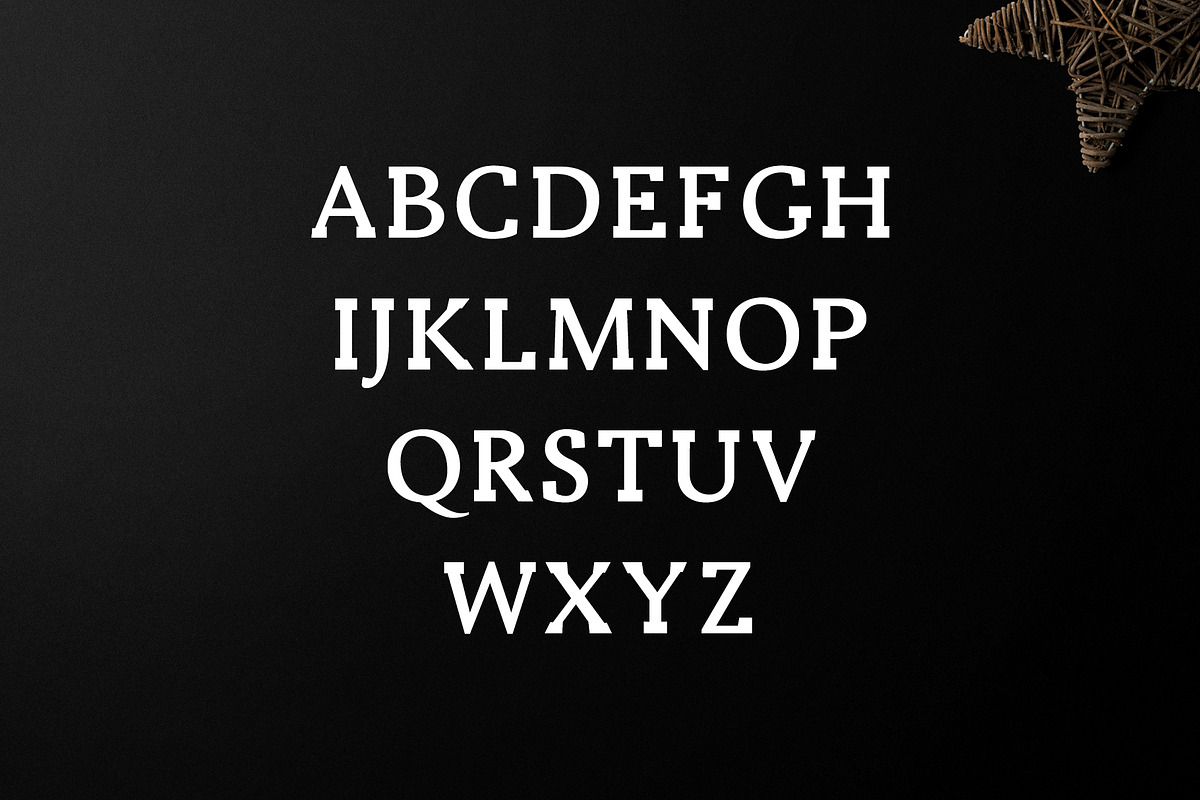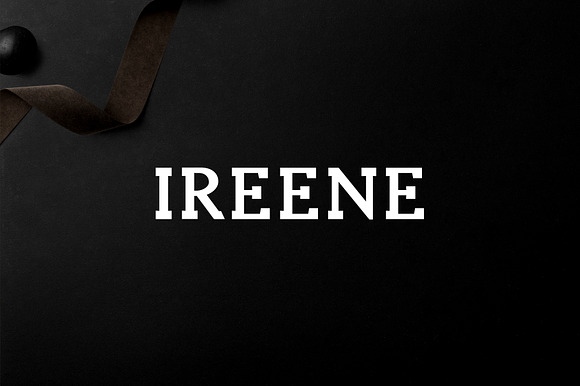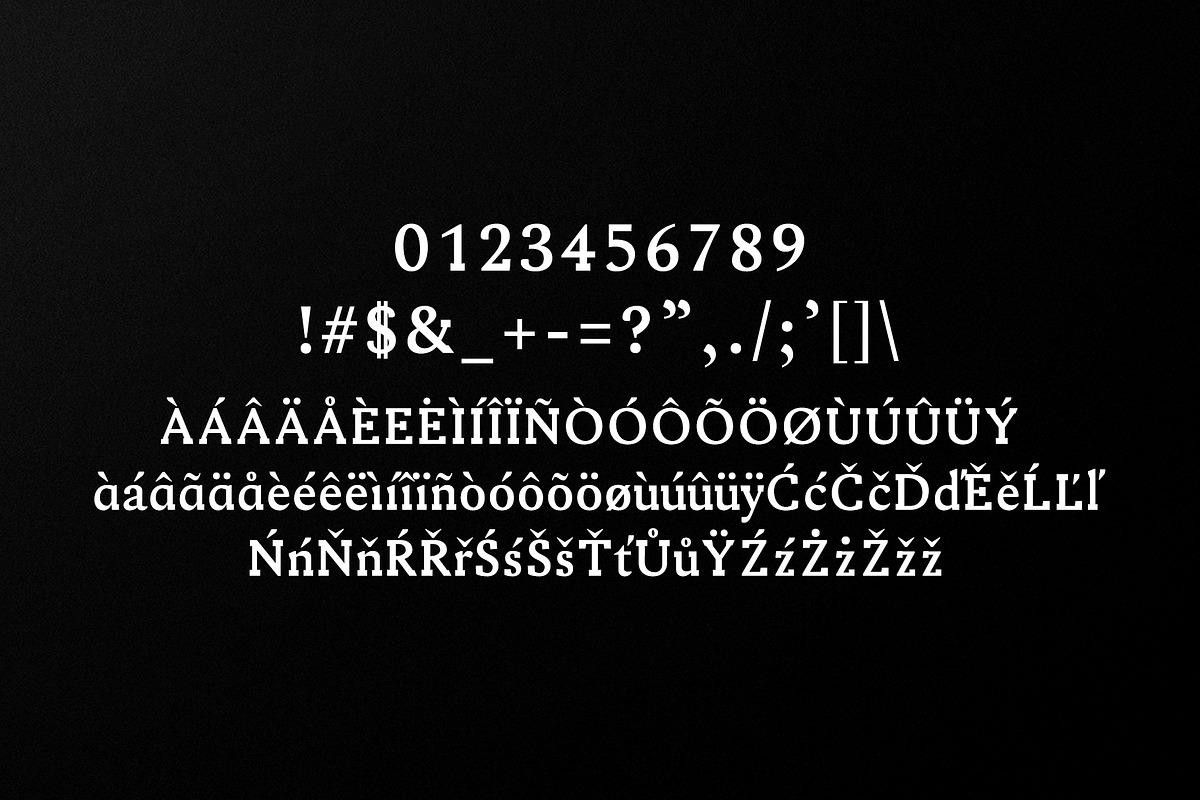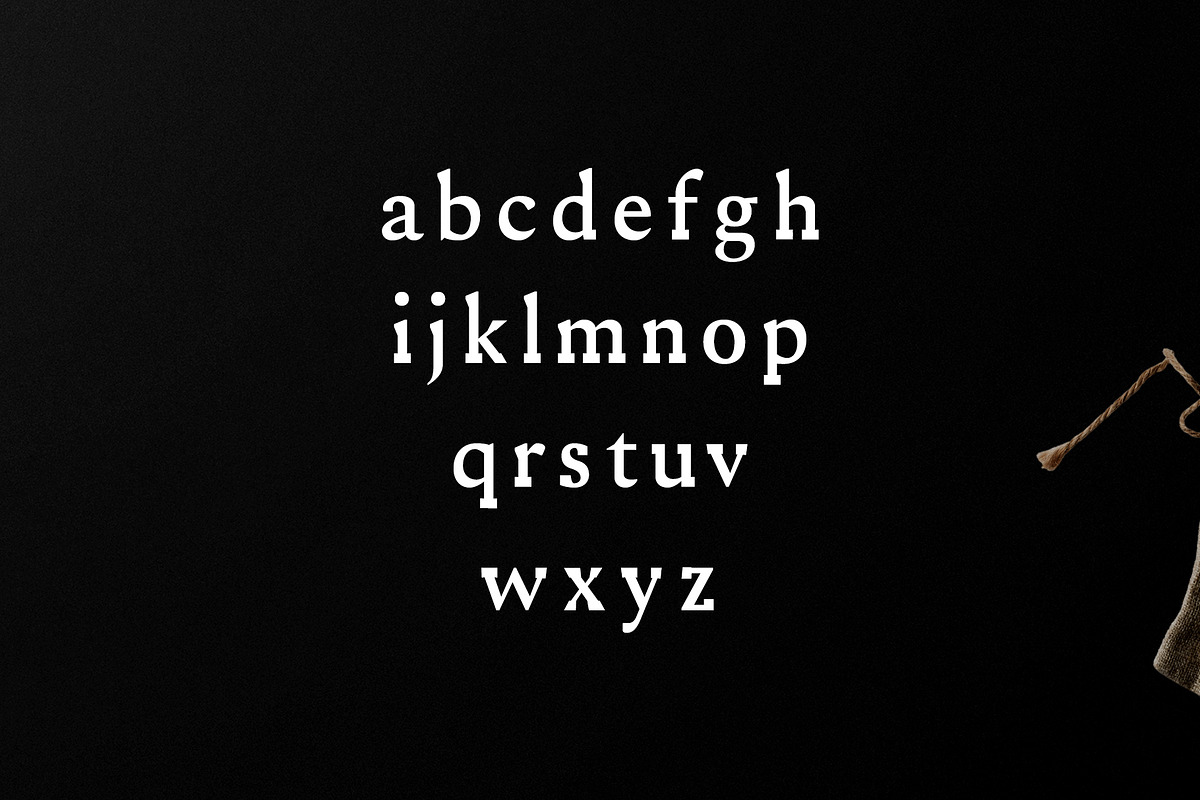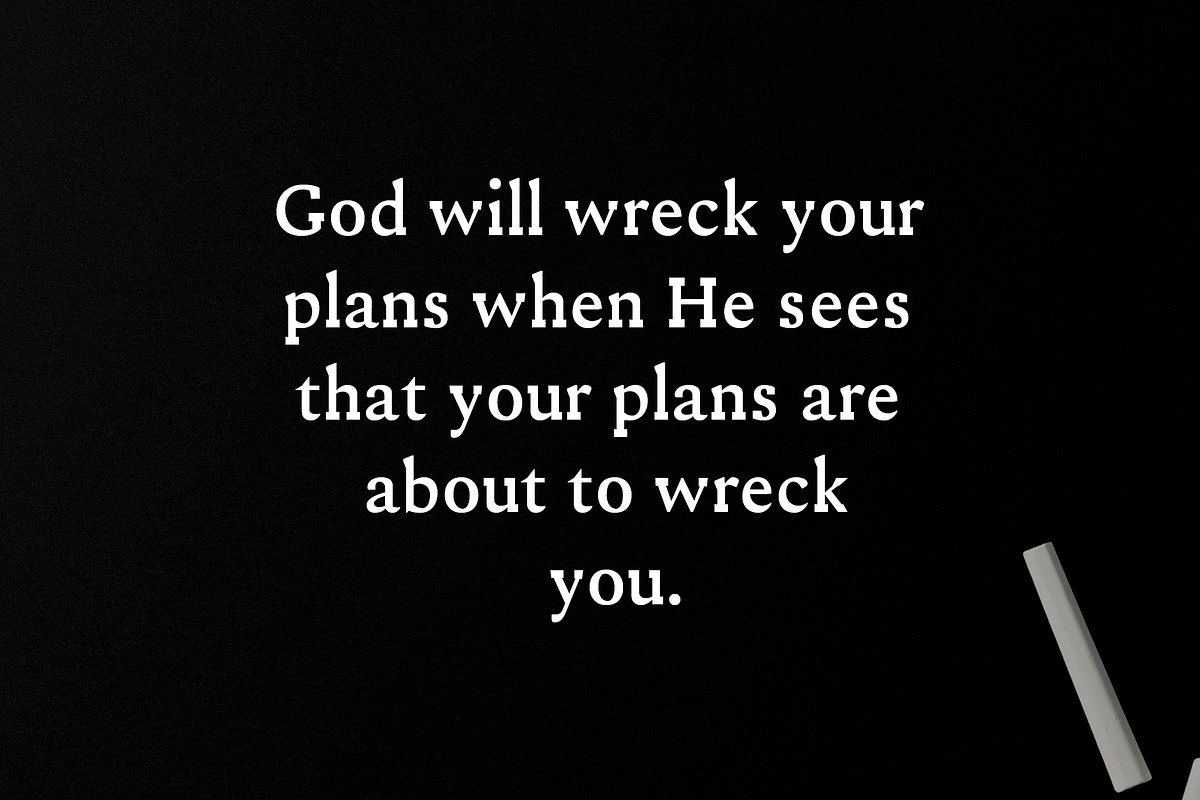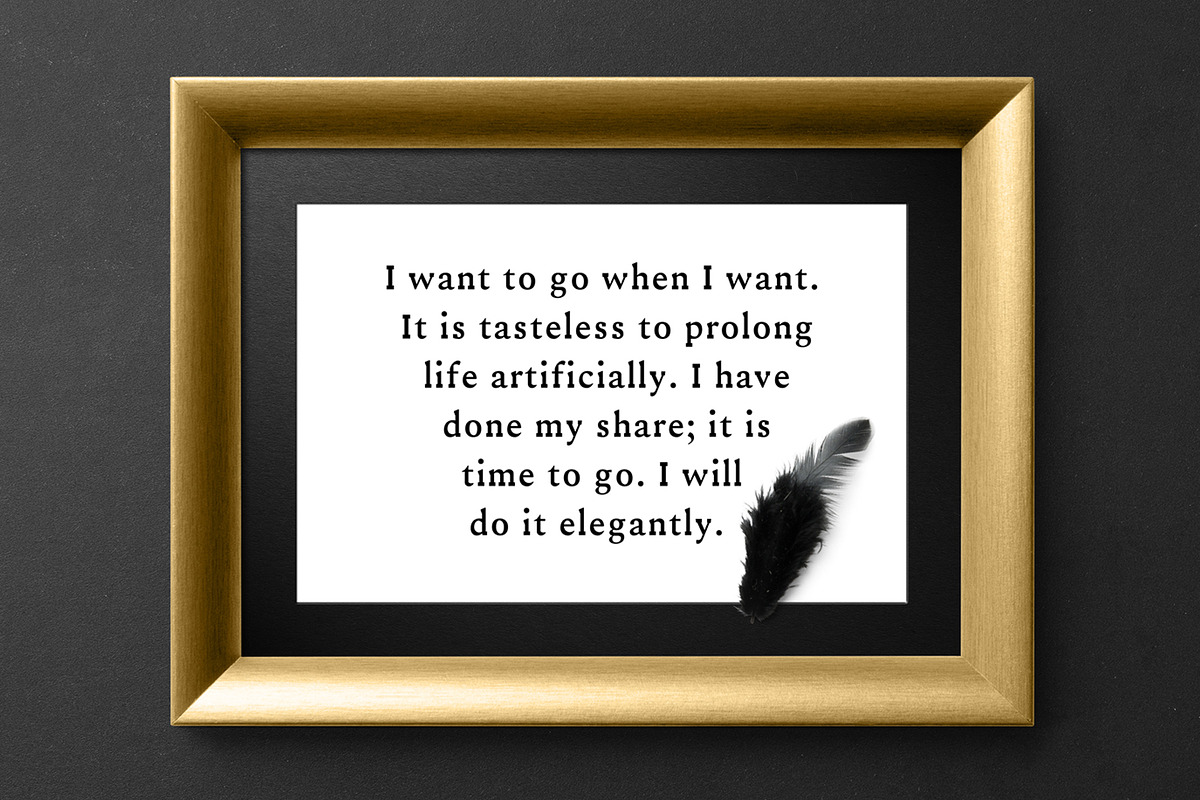
Ireene Serif 3 Font Family Pack
Ireene Serif 3 Font Family Pack features unique and modern serif look and feel. Perfect for gorgeous logos, titles, web layouts and branding. It looks gorgeous in all caps with a wide-set spacing if you want to try a classy look, or beautiful on its own in capital and lowercase letters for something completely timeless.
Font Weight: Regular, Outline and Bold
Ireene Font Features:
Non English Characters ( Latin Supplement + Latin Extended A )
- Font Weight: Regular, Outline and Bold
- Ireene Regular
- Ireene Bold
- Ireene Outline